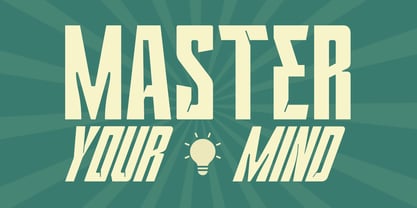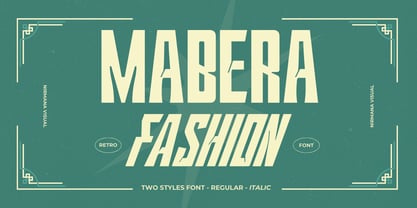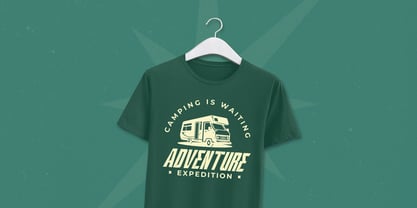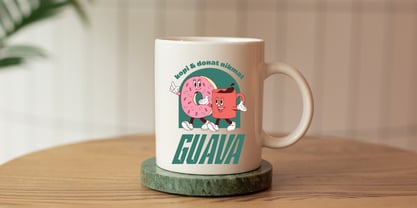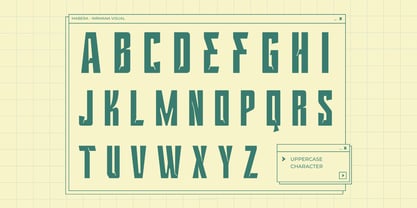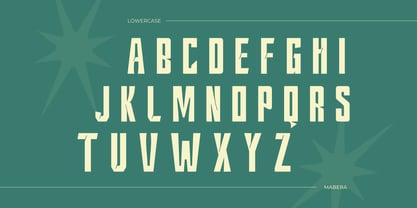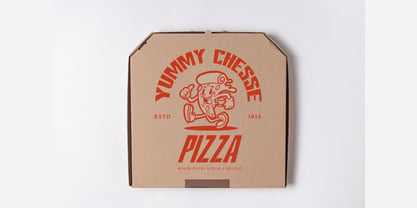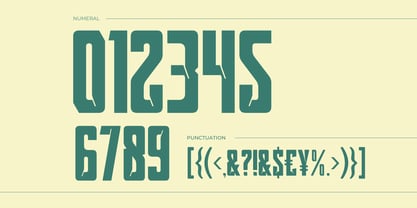
Mabera Fashion
by Nirmana Visual
The Mabera Fashion Font Family was designed by Sigit Dwipa and published by Nirmana Visual. Mabera Fashion contains 2 styles and family package options. More about this family
Mabera is a sans-serif display font that blends playful charm with retro nostalgia. Its bold, rounded shapes and quirky letterforms exude a vibrant personality, making it perfect for eye-catching designs. Inspired by mid-century aesthetics, Mabera brings a touch of vintage flair to modern creativity. Ideal for logos, posters, and branding, it stands out with a unique combination of fun and sophistication with two styles font Regular and Italic. Add a pop of personality to your projects with Mabera's lively retro vibes.
Designers: Sigit Dwipa
Foundry: Nirmana Visual